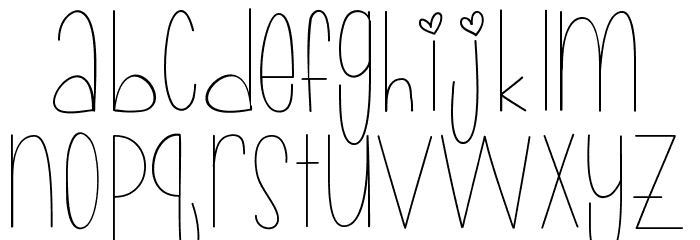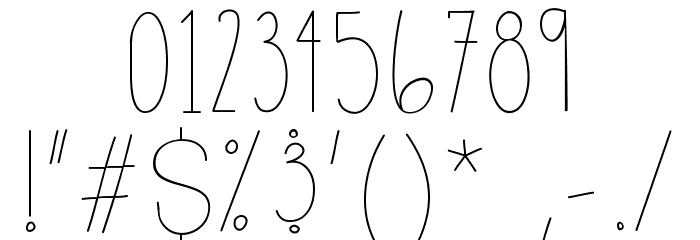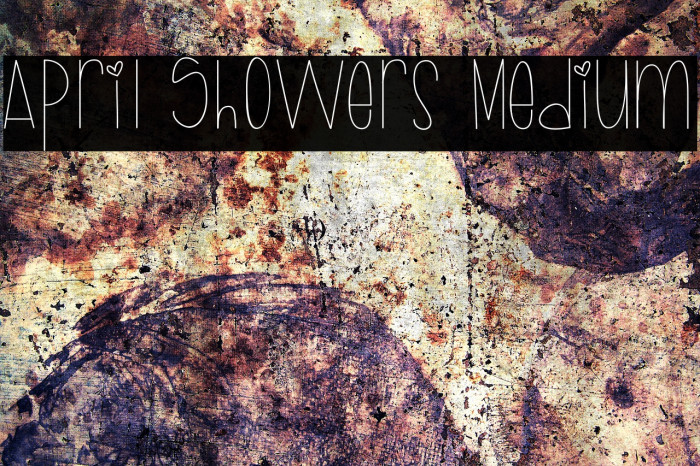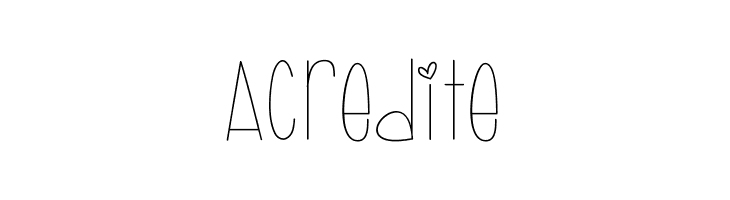
April Showers Medium Font
This font features a playful and whimsical design with tall, narrow characters that have a hand-drawn appearance. The uppercase letters are elongated and slightly uneven, giving them a casual and friendly feel. The lowercase letters follow a similar style, with some characters incorporating unique elements, such as hearts in place of dots on the 'i' and 'j'. The numbers are consistent with the overall style, maintaining the same narrow and tall proportions. Special characters are creatively integrated, adding to the font's charm. This font is ideal for projects that require a touch of personality and creativity.
A playful, hand-drawn font with tall, narrow characters and whimsical details.
- Proposed Projects: Ideal for greeting cards, children's books, playful branding, and creative invitations.
- Overall Style: Whimsical
- Use Case: Headlines, Logos, Decorative text